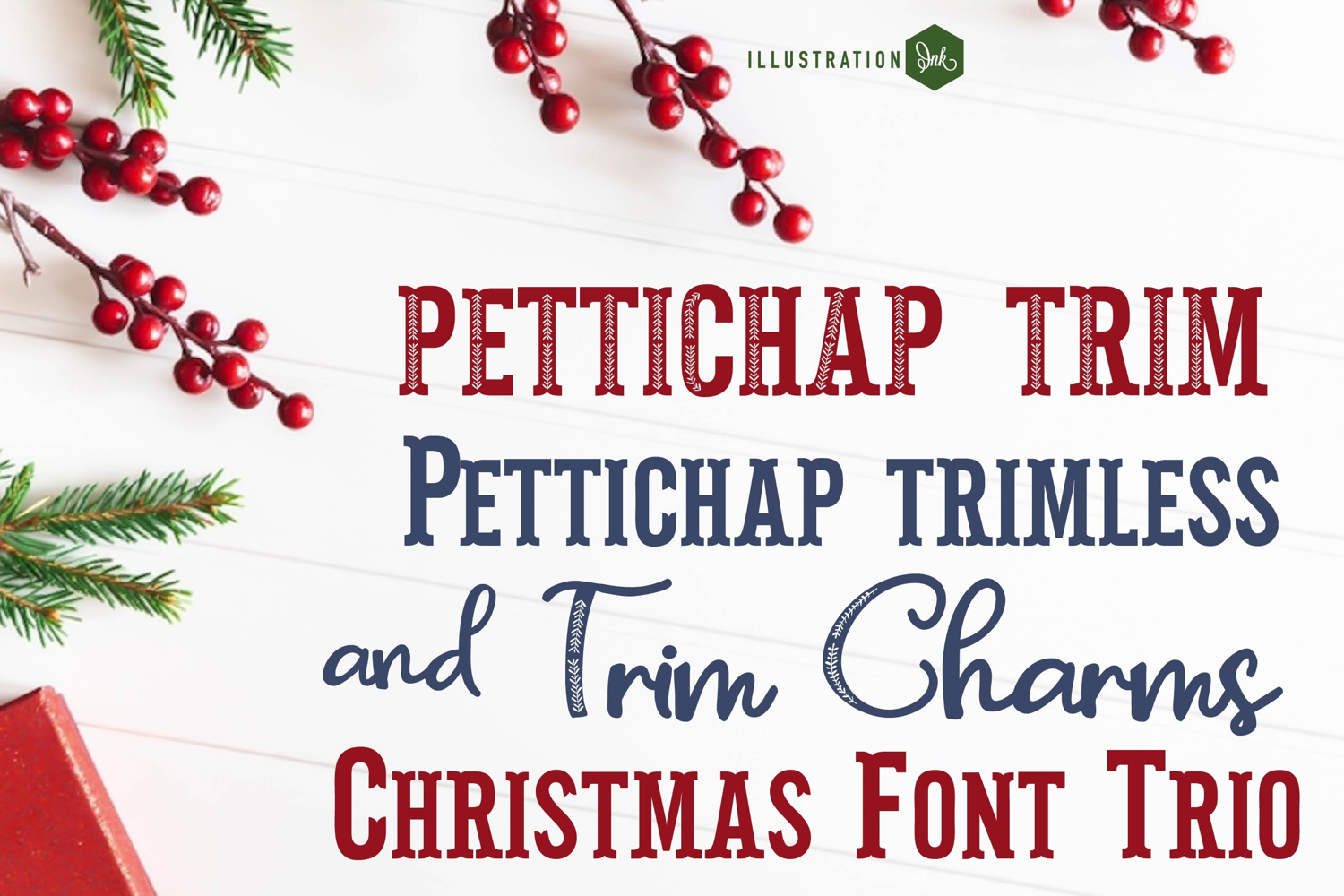
Pettichap Trim Font Duo
This hand-crafted font duo combines an ornament-wearing serif, a plain version, and a perfectly coordinated script. Bonus tag dingbat font included! With all family members combined of the 3 fonts, you get 13 fonts all together!
Hand-crafted fonts can be either formal or informal, and they can be used for a variety of purposes. Some of the characteristics of handwritten fonts include: The letters are not perfectly uniform in size or shape. There may be slight variations in the spacing between letters and words. The font may have a "wiggly" or "squiggly" appearance. The font may be difficult to read at small sizes. Handwritten fonts can be a great way to add a casual touch to your designs. They can also be used to create a sense of nostalgia or whimsy. However, it is important to choose a handwritten font that is appropriate for the project you are working on. A formal handwritten font may not be appropriate for a casual invitation, while an informal handwritten font may not be appropriate for a corporate document.
• The letters are not perfectly uniform in size or shape.
• There may be slight variations in the spacing between letters and words.
• The font may have a "wiggly" or "squiggly" appearance.
• The font may be difficult to read at small sizes.